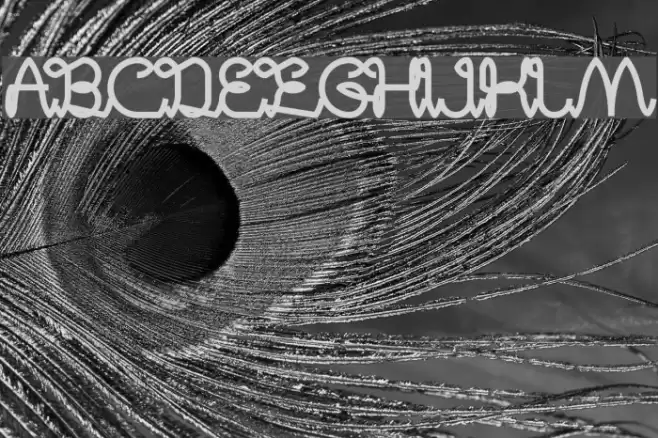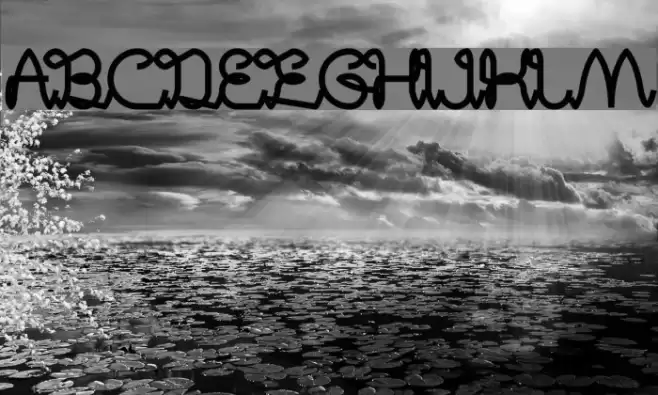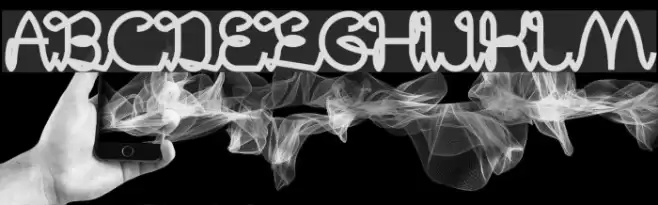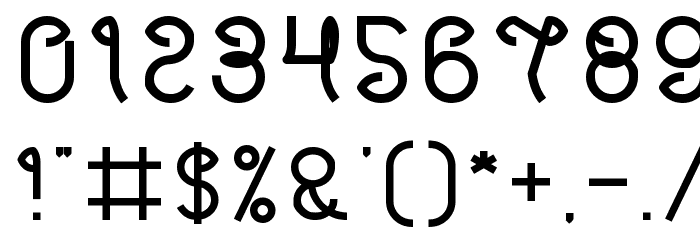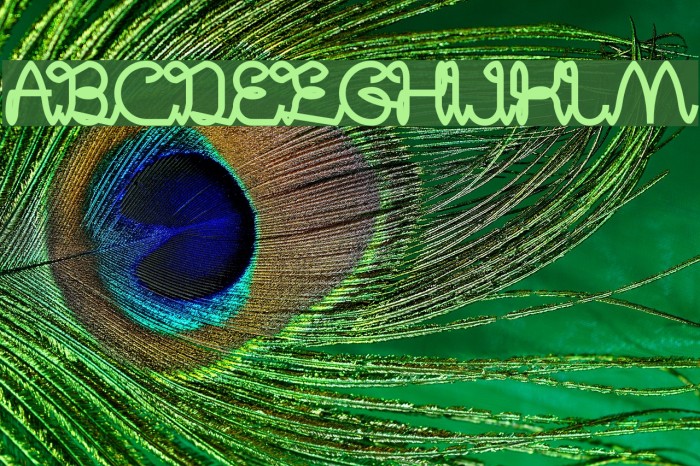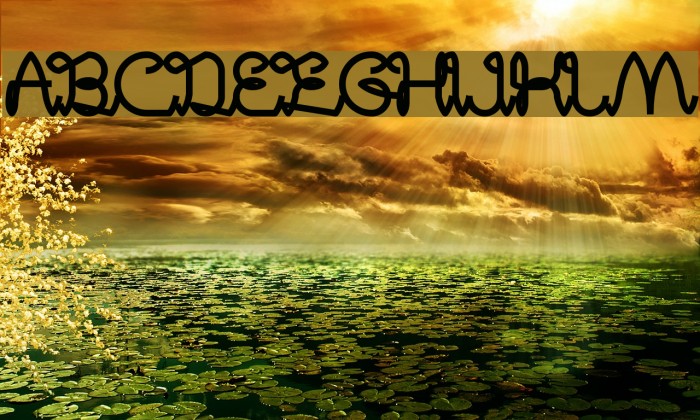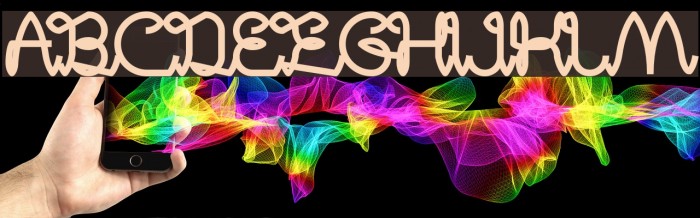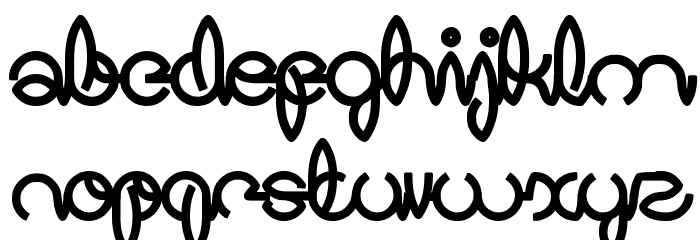
Digital Handmade Bold Font
Digital Handmade Bold Description
This font features a bold, interconnected script style that mimics the appearance of handwritten text. The characters are rounded and fluid, with a playful and artistic flair. Each letter seamlessly connects to the next, creating a continuous flow that is both dynamic and visually engaging. The bold strokes give it a strong presence, making it suitable for attention-grabbing designs. The numbers and special characters maintain the same cohesive style, ensuring consistency across all elements. This font is perfect for projects that require a personal touch or a creative, handmade aesthetic.
A bold, interconnected script font with a playful, handmade style from Uncategorized fonts.
- Proposed Projects: Ideal for greeting cards, invitations, branding, and creative posters.
- Character Spacing: Tight
- Use Case: Logos, Headlines, Creative projects